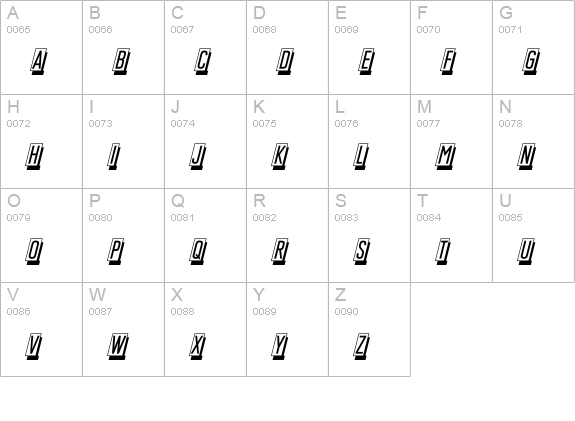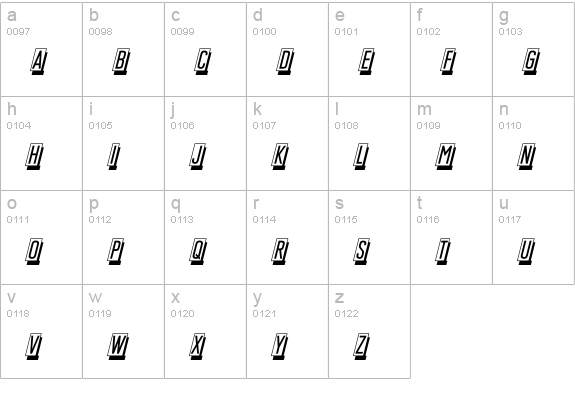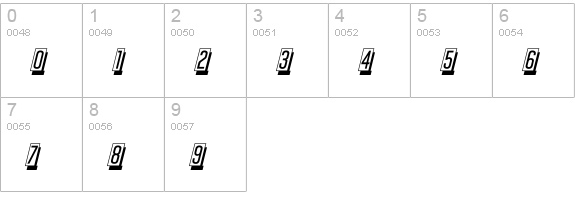
Mastercard Std Font Details
Introducing Mastercard Std, a captivating and versatile font that will elevate your design projects to new heights. With its clean lines and modern appeal, this font is perfect for both digital and print media. Whether you're creating eye-catching logos, stunning headlines, or elegant invitations, Mastercard Std will effortlessly add a touch of sophistication to any design. One of the best things about Mastercard Std is that it is freely available to download at FontsMarket.com. Yes, you read that right - this exceptional font is completely free! Now you can enjoy the benefits of a high-quality font without breaking the bank. Whether you're a professional designer or a hobbyist, Mastercard Std allows you to elevate your work without any cost. With its wide range of weights and styles, Mastercard Std offers endless possibilities for creative expression. From bold and impactful to delicate and refined, this font has it all. Its versatility makes it suitable for a variety of design projects, from branding and advertising to web design and packaging. Mastercard Std is meticulously crafted to ensure legibility and clarity, even at small sizes. Its carefully designed letterforms and balanced proportions make it a pleasure to read, ensuring that your message is conveyed effortlessly to your audience. So why wait? Experience the freedom and creativity that Mastercard Std brings to your design projects. Download it for free at FontsMarket.com and unlock a world of possibilities. Elevate your designs, captivate your audience, and make a lasting impression - all with the help of Mastercard Std.